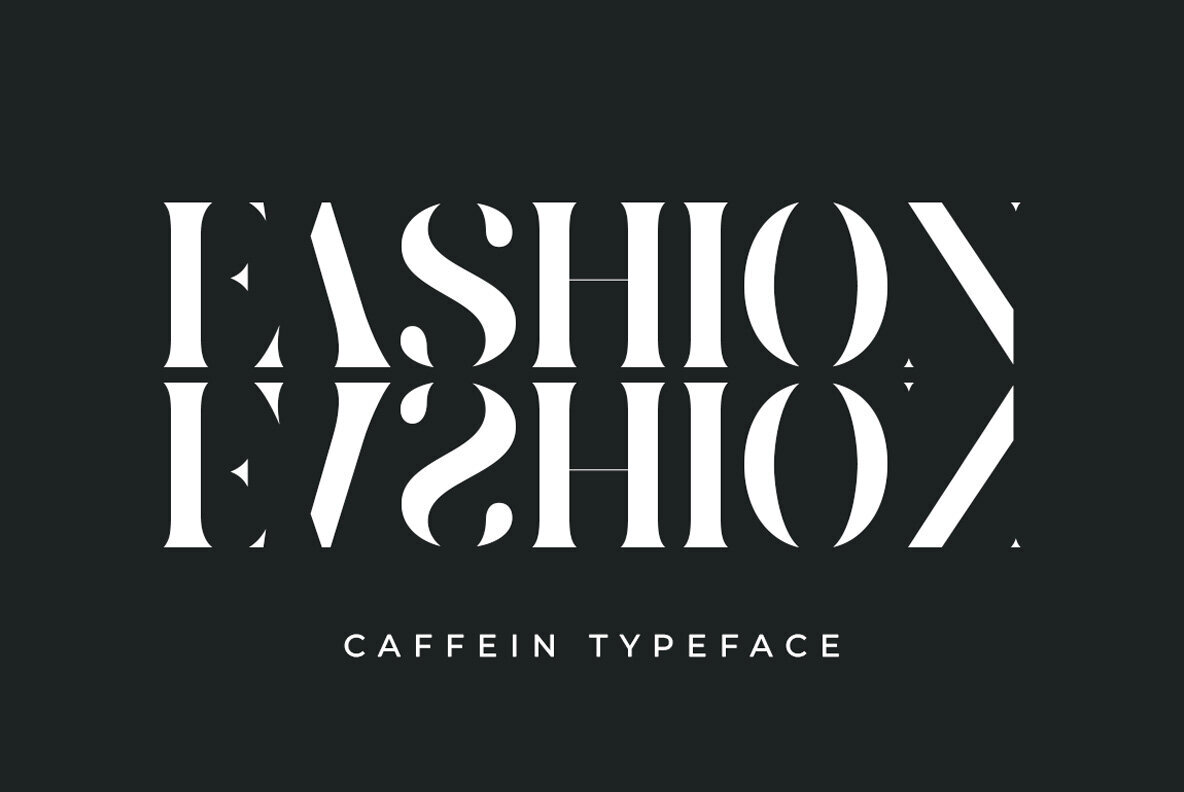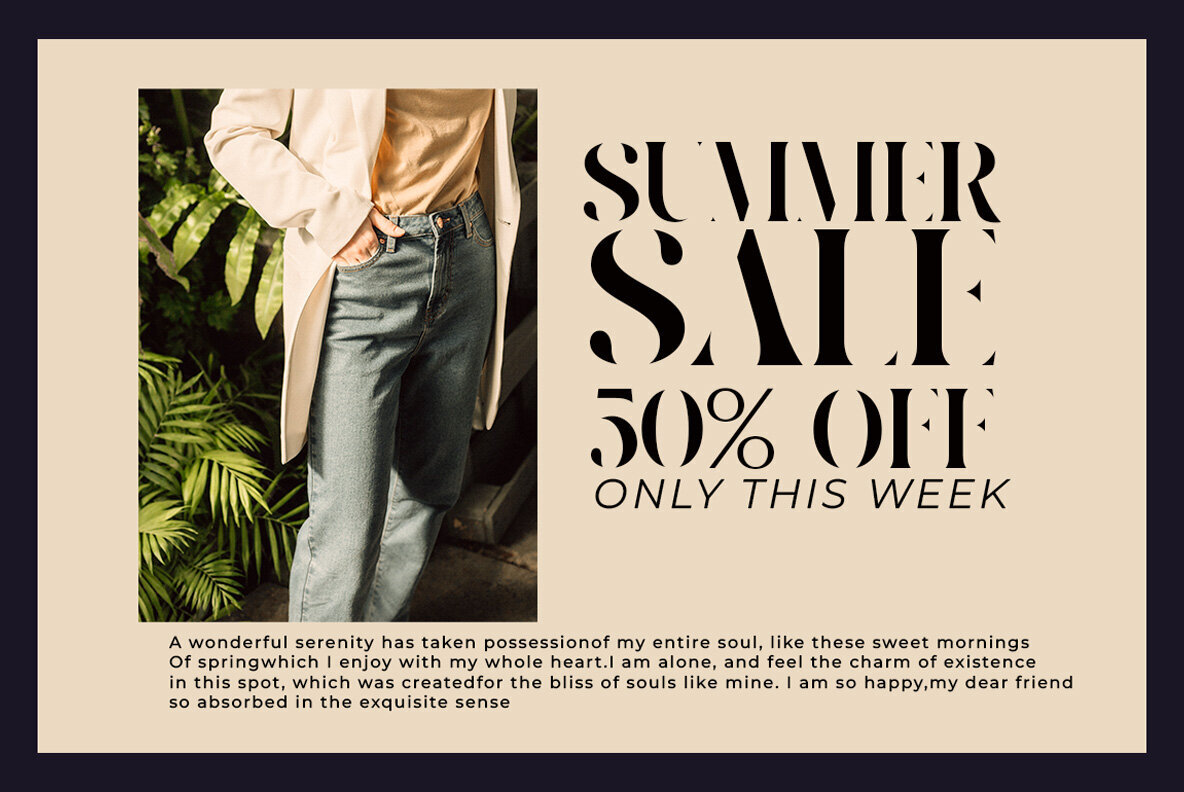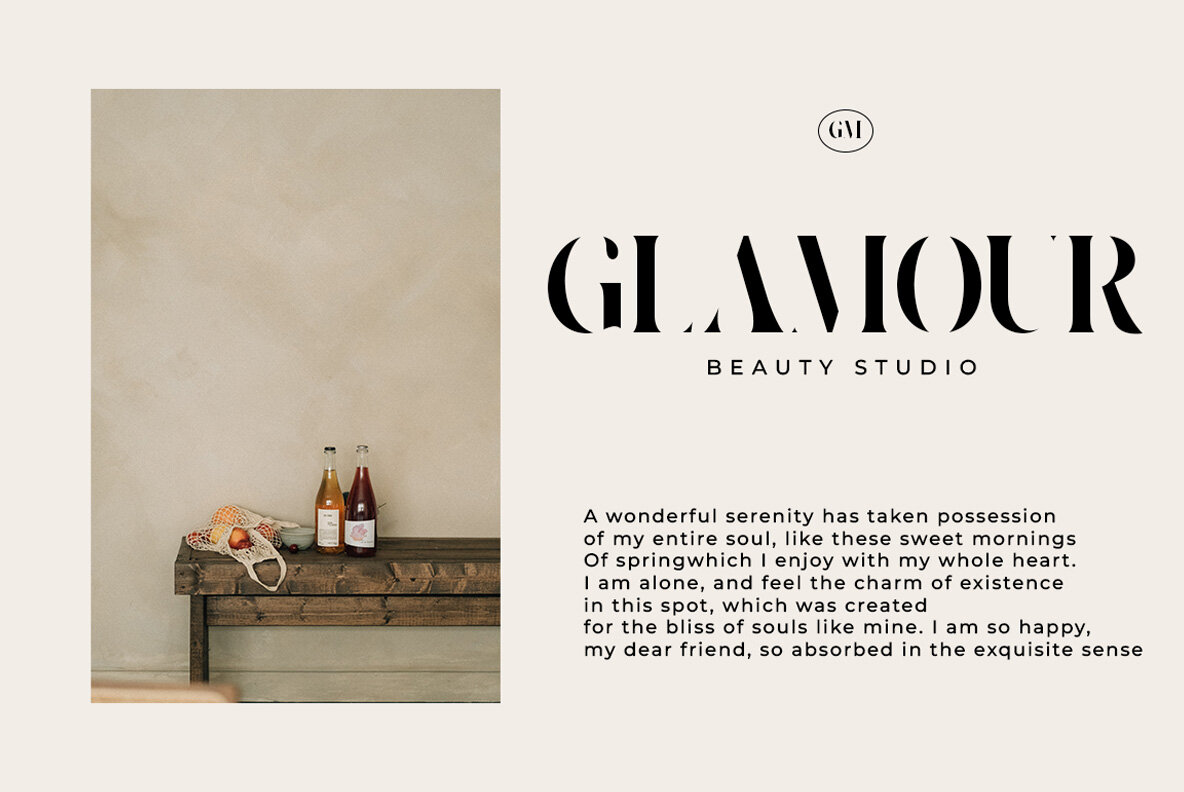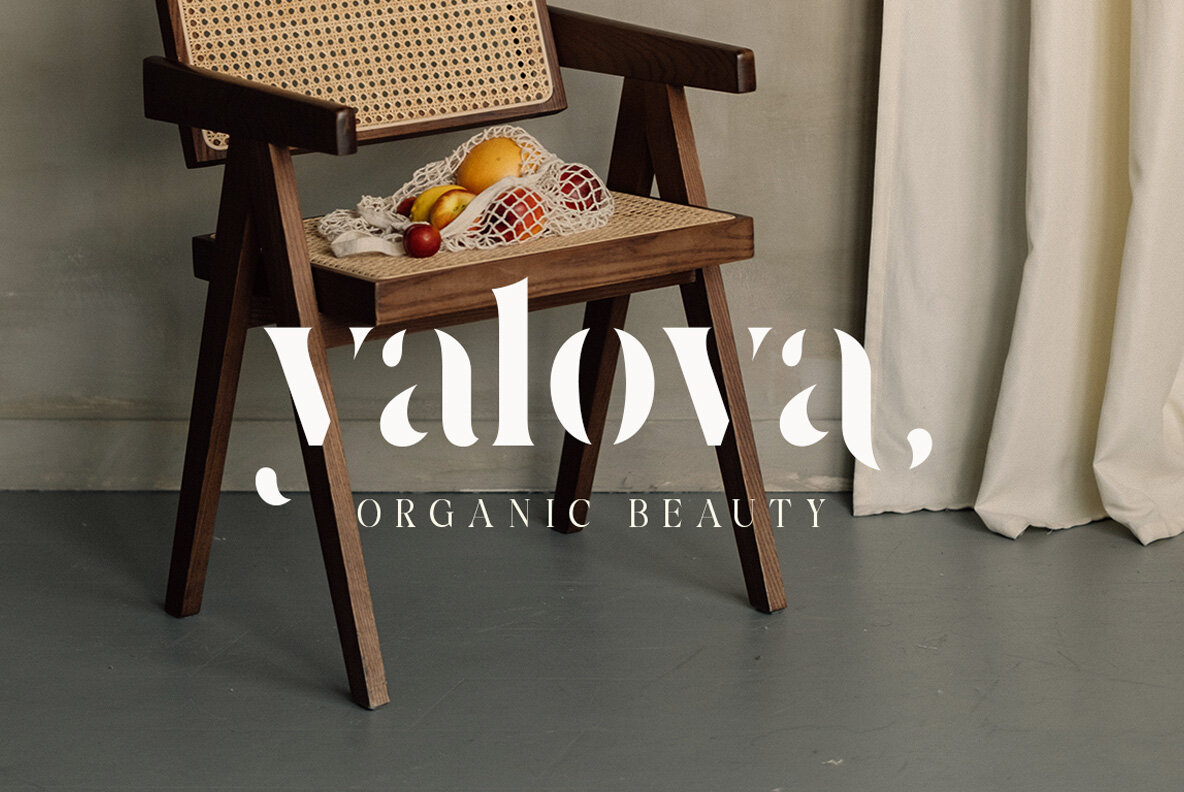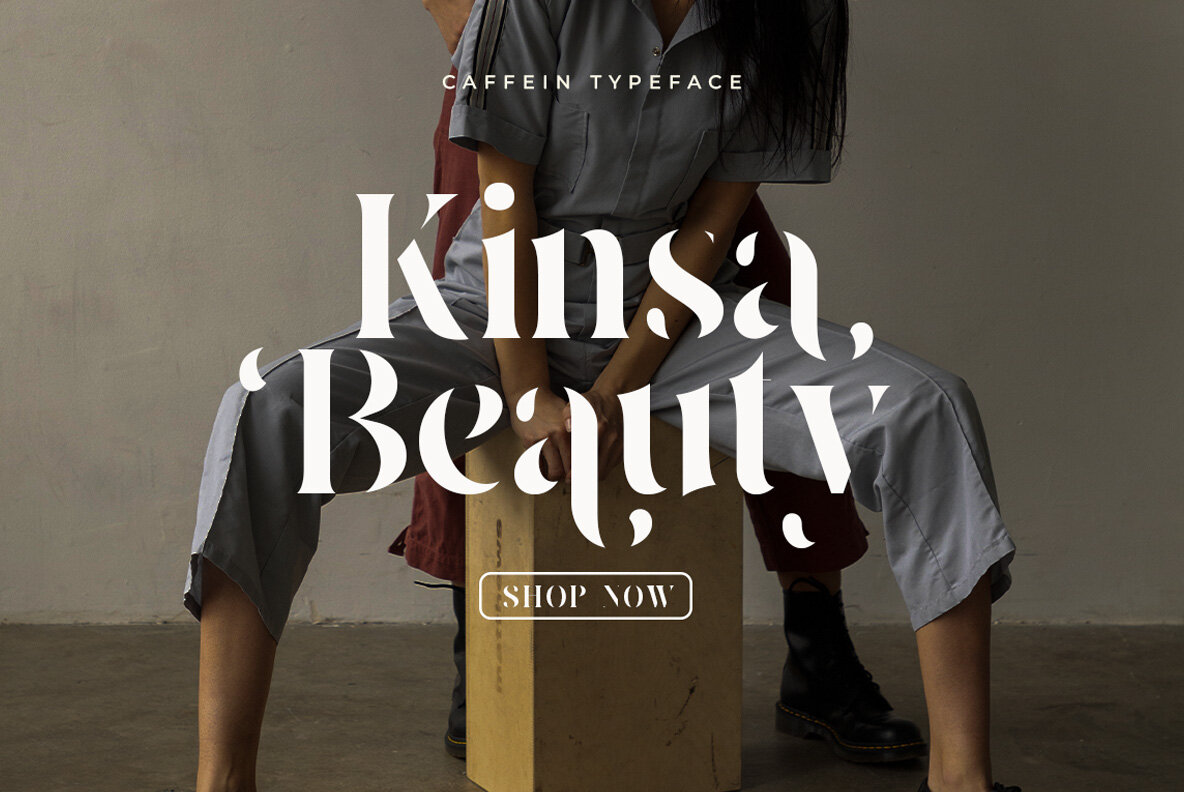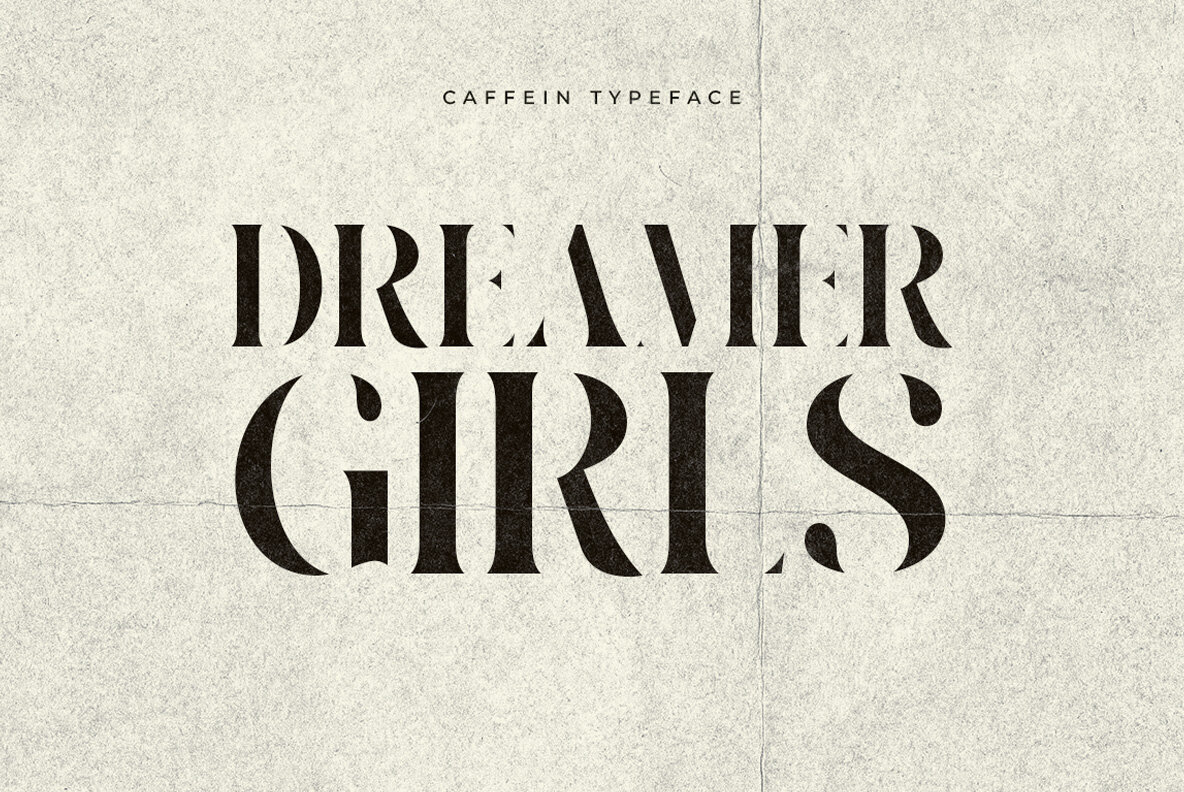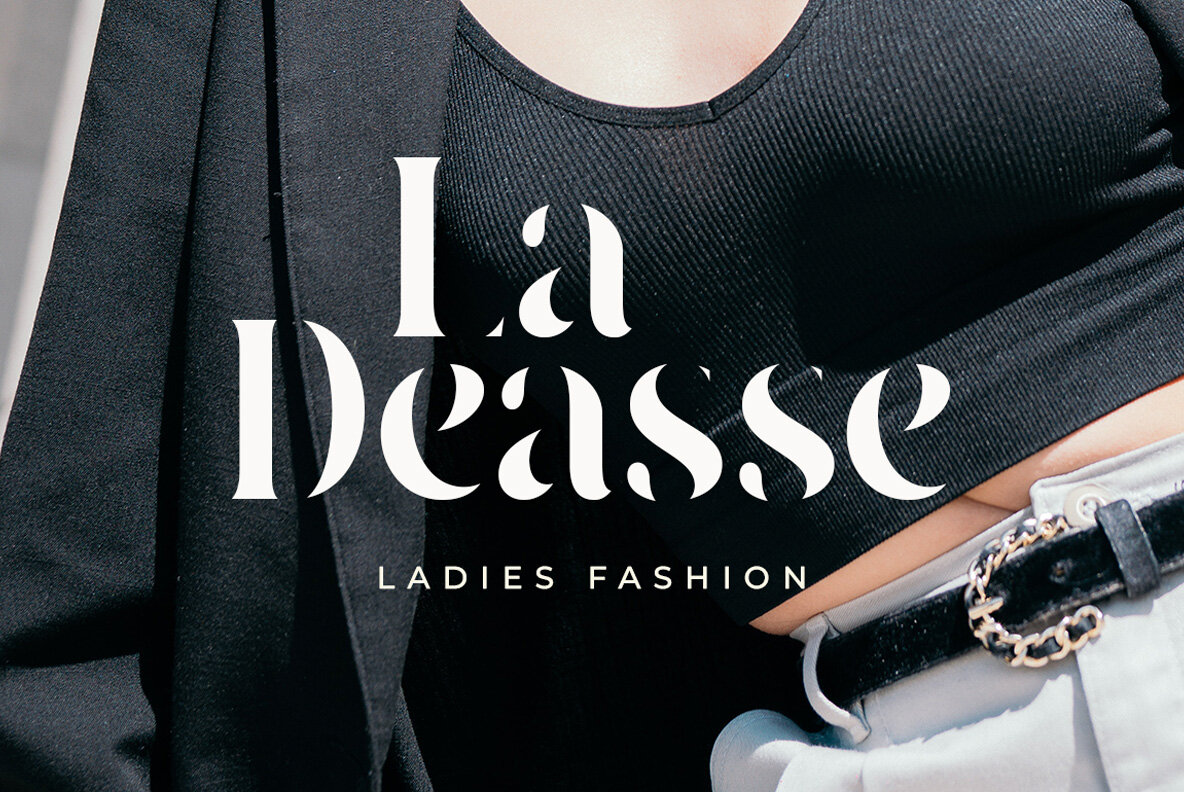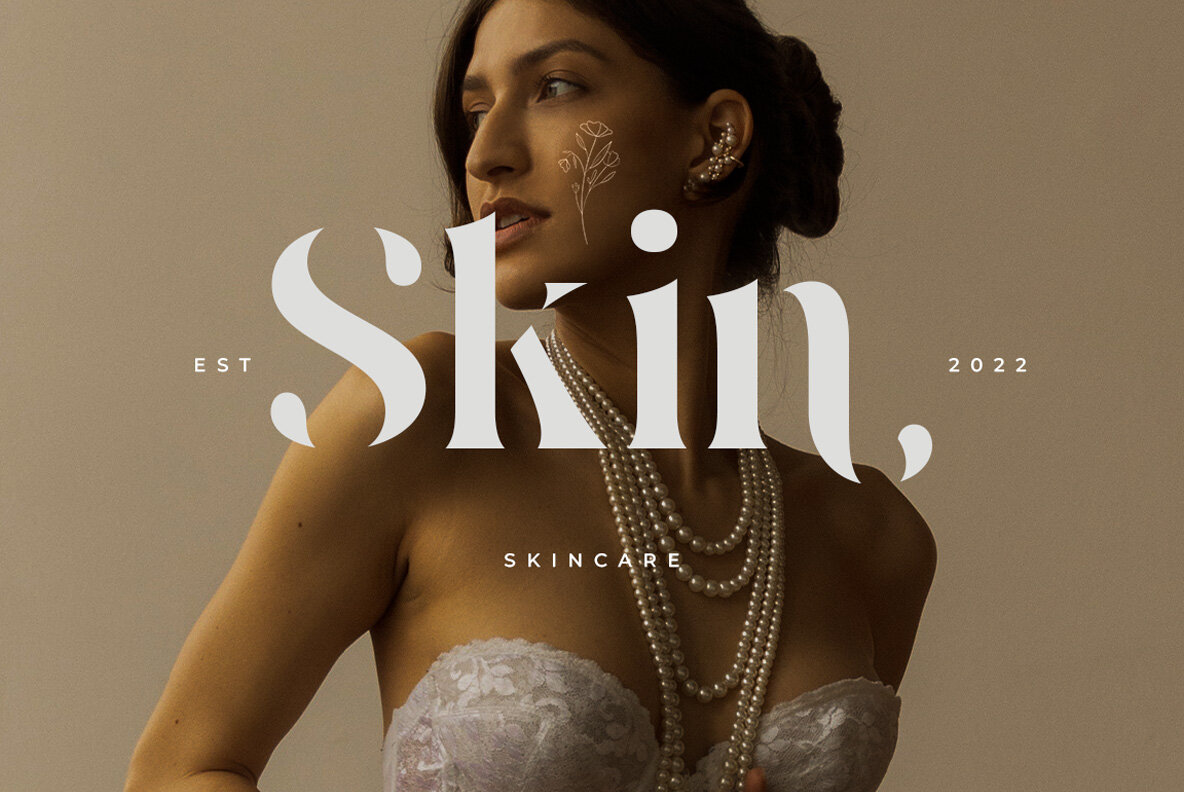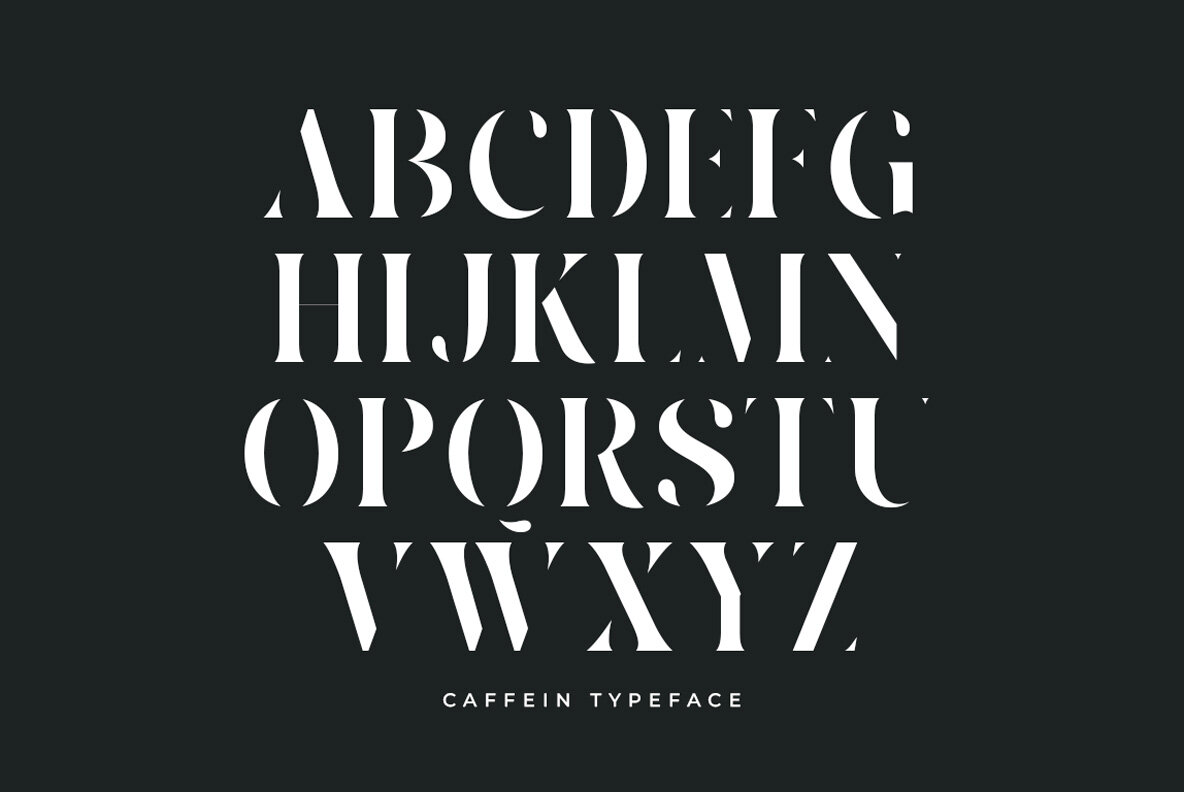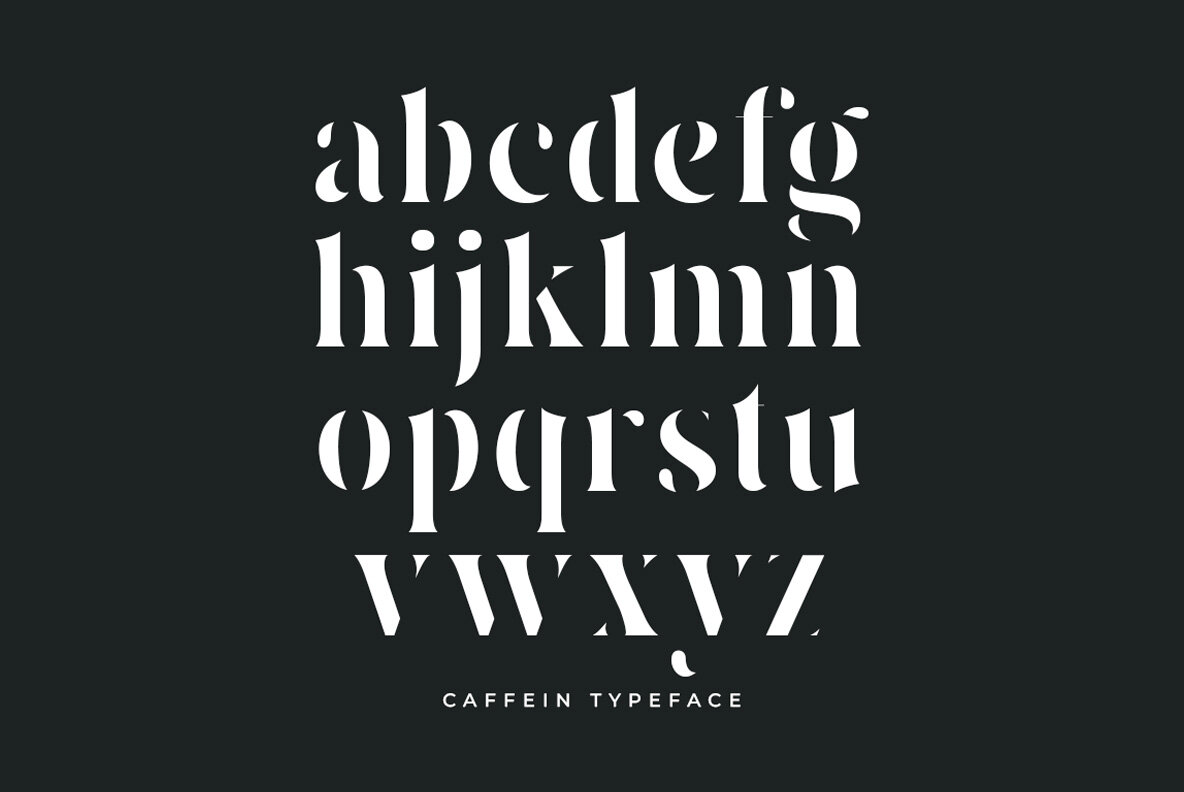
Caffein Font
Caffein Regular
Introducing "Caffein" - a distinctive and supremely elegant font designed specifically for brand and logo creation. As experienced graphic designers, we've frequently encountered client requests for unique yet elegant logo designs. Driven by these creative challenges, we brainstormed and crafted "Caffein" to bring those ideas to life. The perfect choice for branding and logo design, "Caffein" delivers an air of sophistication and exclusivity. With this font, you'll effortlessly create logos that exude class, elegance, and a touch of individuality. Delight in the possibilities offered by "Caffein" and watch as your designs captivate and impress your audience with their refined charm.